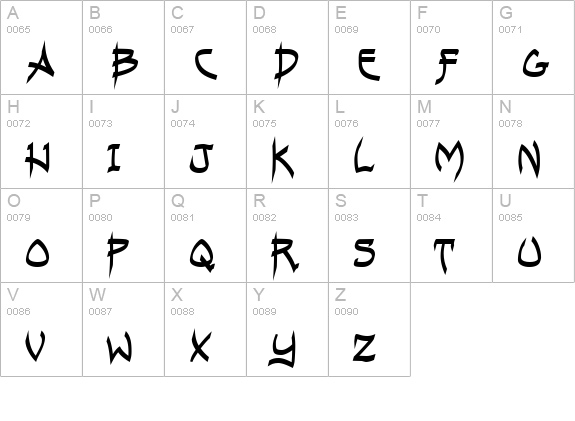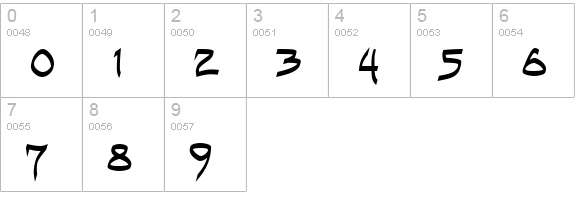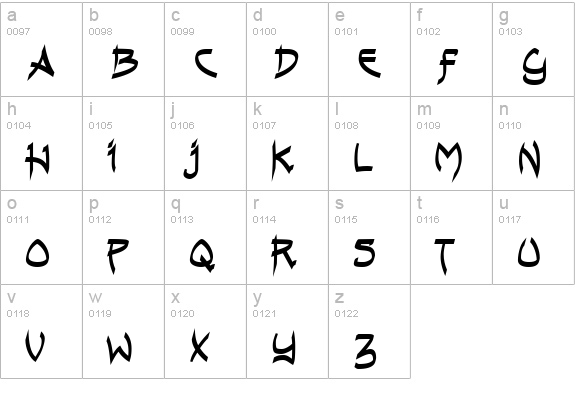
Andreas Pen MF Bold is a strong, high-contrast variant in the Andreas typeface family \xE2\x80\x94 well suited to headlines, attention-grabbing titles, and strong calls-to-action.
Andreas Pen MF Bold is a striking and versatile font that exudes confidence and modernity. Its bold and dynamic design makes it perfect for headlines, titles, and branding projects that require a strong and impactful visual presence. The clean lines and sharp edges of this font give it a contemporary and stylish look that will make your designs stand out. What's even better is that Andreas Pen MF Bold is available for free download at FontsMarket.com. This means you can easily access and use this exceptional font in your creative projects without any cost. Whether you're a designer, blogger, or business owner, Andreas Pen MF Bold is a fantastic addition to your font collection, offering endless possibilities for creating eye-catching and professional designs. Download it now and elevate your designs with this stunning typeface!